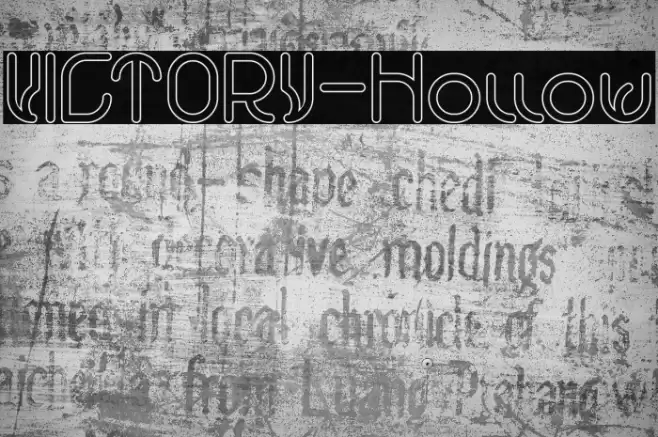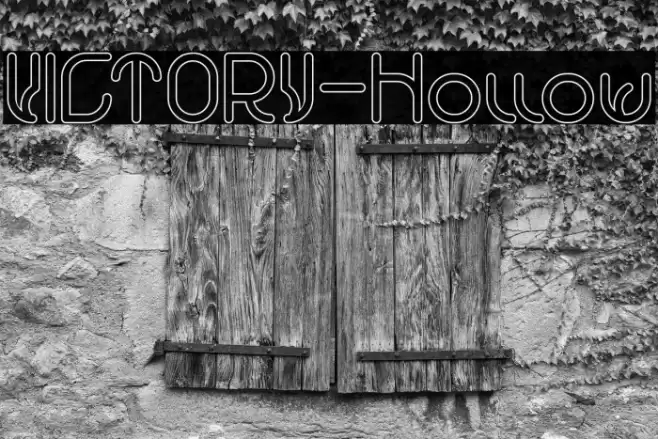
VICTORY-Hollow Font
VICTORY-Hollow Description
This font features a unique hollow design with a futuristic and geometric aesthetic. The characters are outlined, creating a sense of openness and lightness. Each letter is constructed with clean, rounded edges and consistent line thickness, giving it a modern and sleek appearance. The uppercase and lowercase letters maintain a uniform style, while the numerals and special characters complement the overall design. This font's distinct style makes it stand out, ideal for creative and bold applications.
A futuristic, hollow, geometric font with a modern aesthetic from Uncategorized fonts.
- Proposed Projects: Ideal for branding, posters, digital art, and futuristic-themed projects.